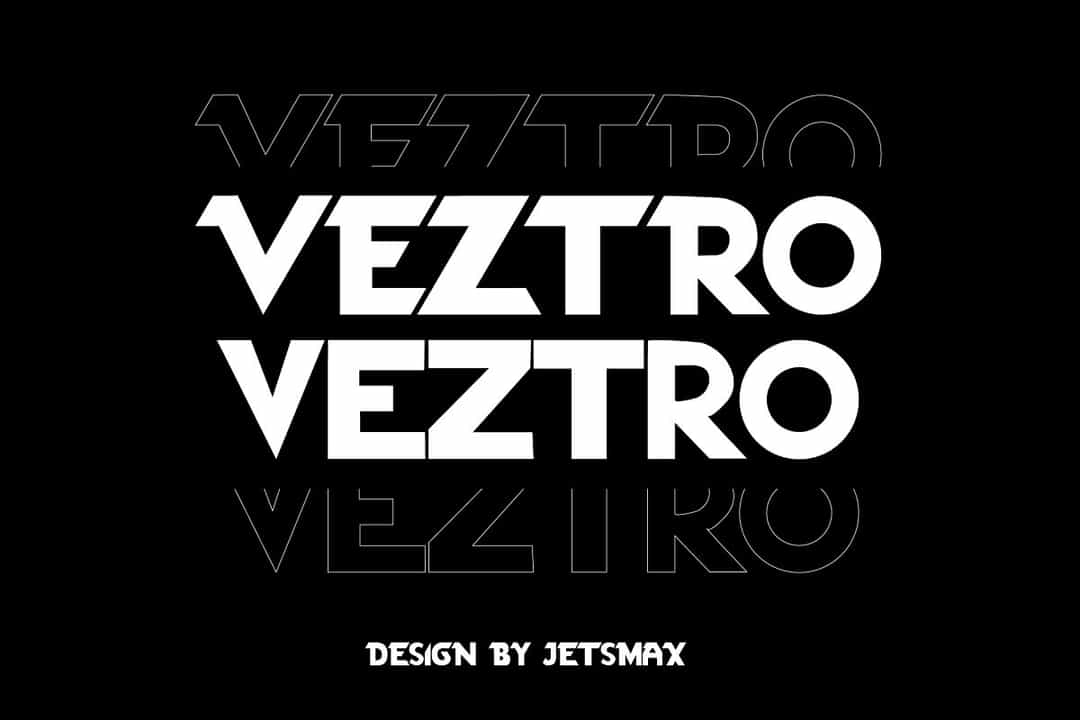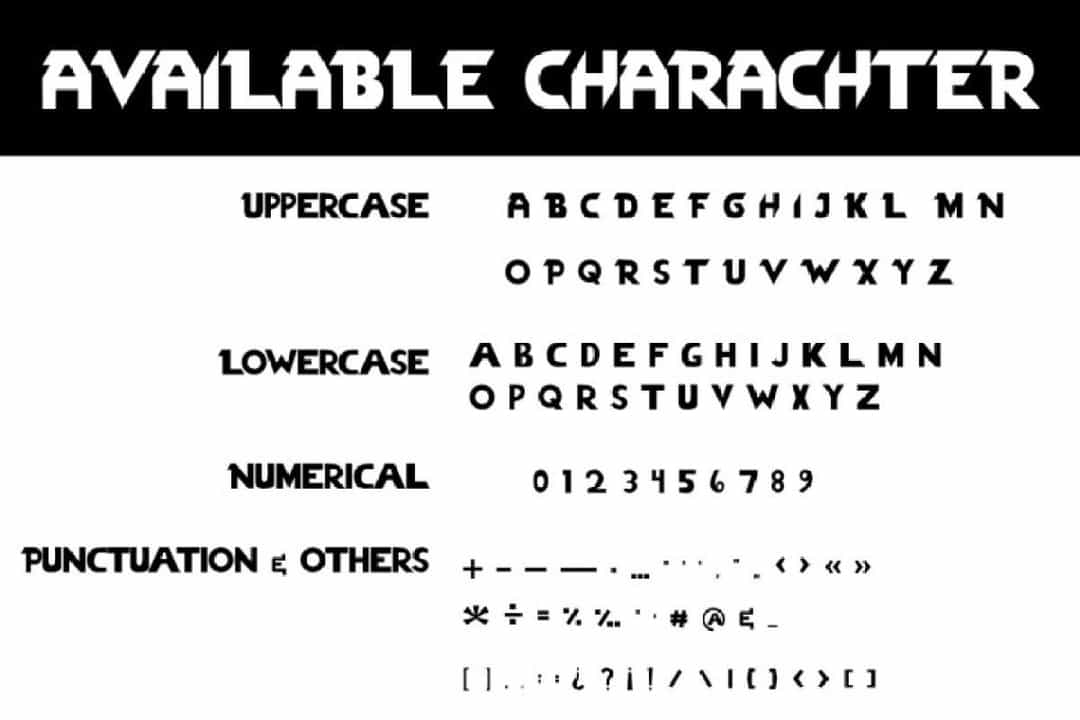
Veztro is a display font that has that professional and edgy look to it that people would enjoy. If you want your work to look more contemporary, then Veztro will assist to make your design stand out! VK dead perfect for logos posters album covers branding social media posts business cards presentations portfolios,